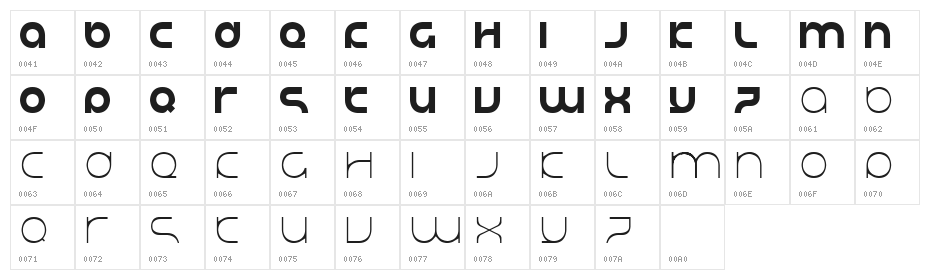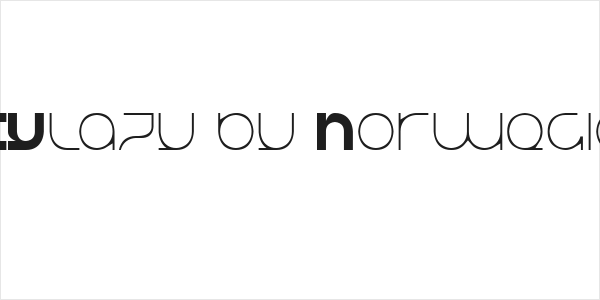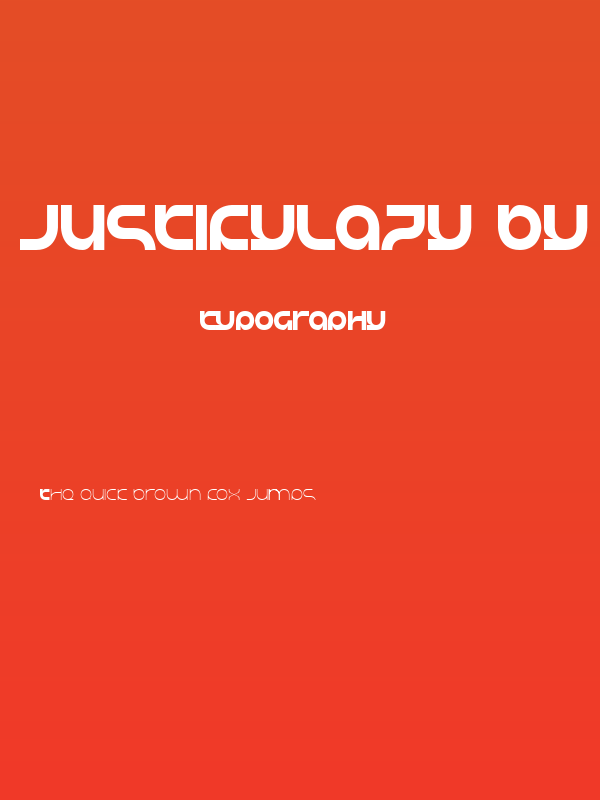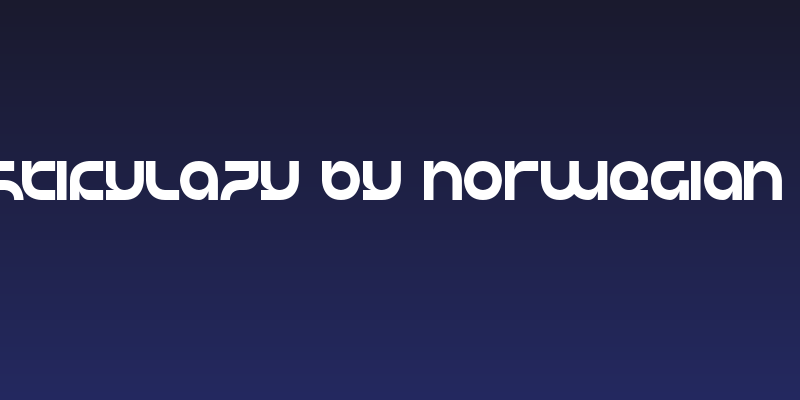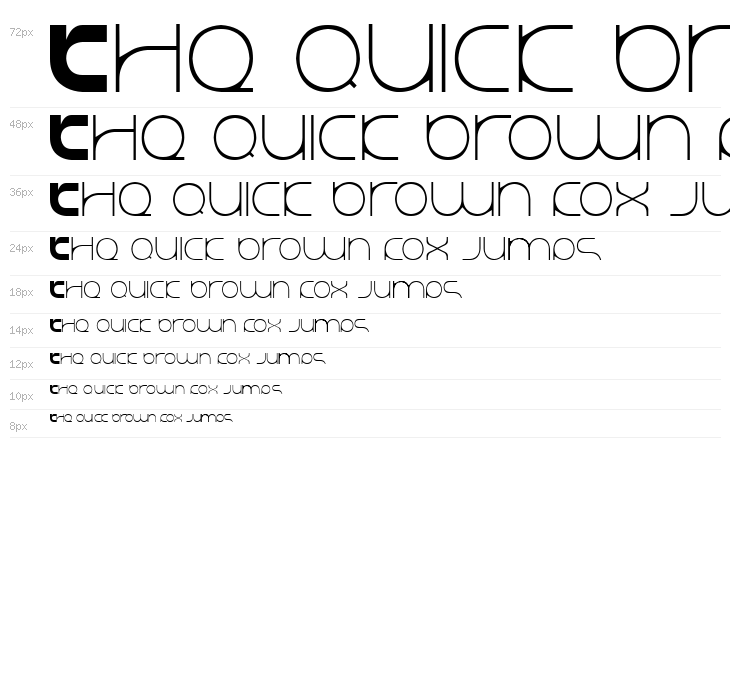
JUSTIFYlazy by Norwegian Ink Font
JUSTIFYlazy by Norwegian Ink Description
This font presents a modern and geometric style with a unique blend of bold and thin lines. The uppercase and lowercase letters are characterized by their rounded edges and consistent stroke width, creating a harmonious and balanced appearance. The design is sleek and minimalistic, making it suitable for contemporary projects. The characters have a futuristic feel, with some letters featuring unexpected curves and angles that add a distinctive touch. The font's clean lines and symmetrical forms make it highly legible, while its artistic elements provide visual interest.
| Use Case | Logos, Headlines, Branding |
| Proposed Projects | Ideal for branding, advertising, digital media, and modern design projects that require a sleek and contemporary look. |